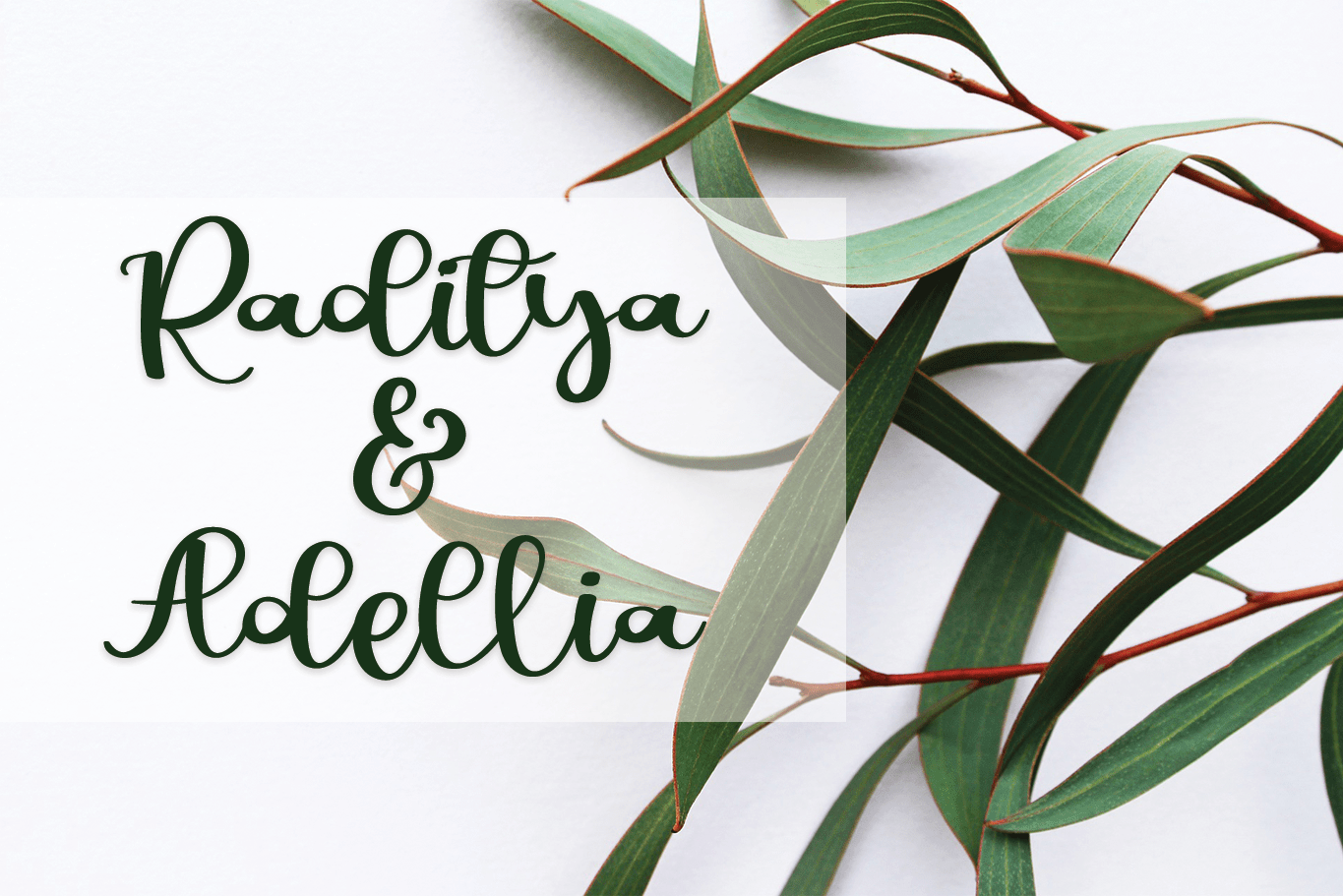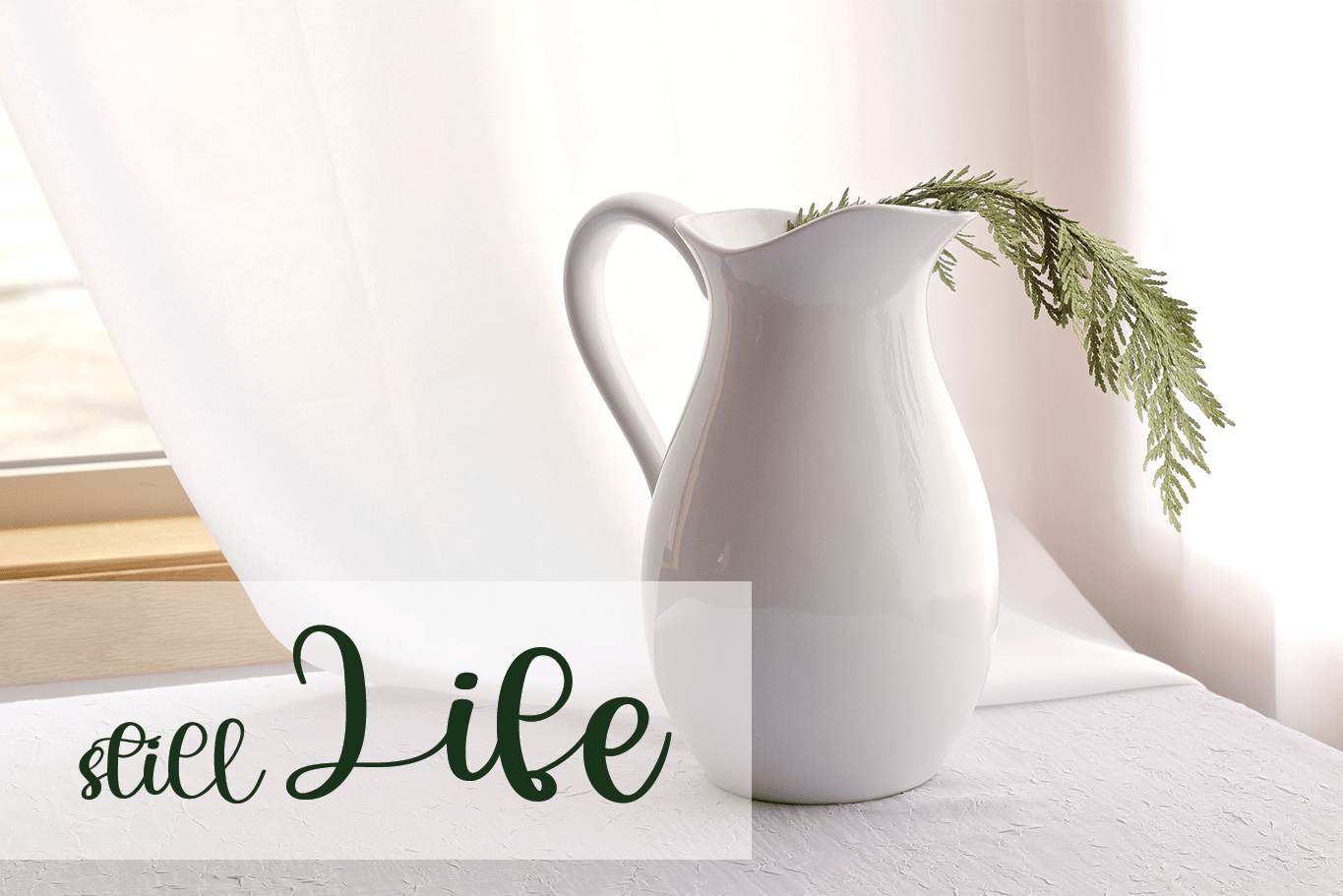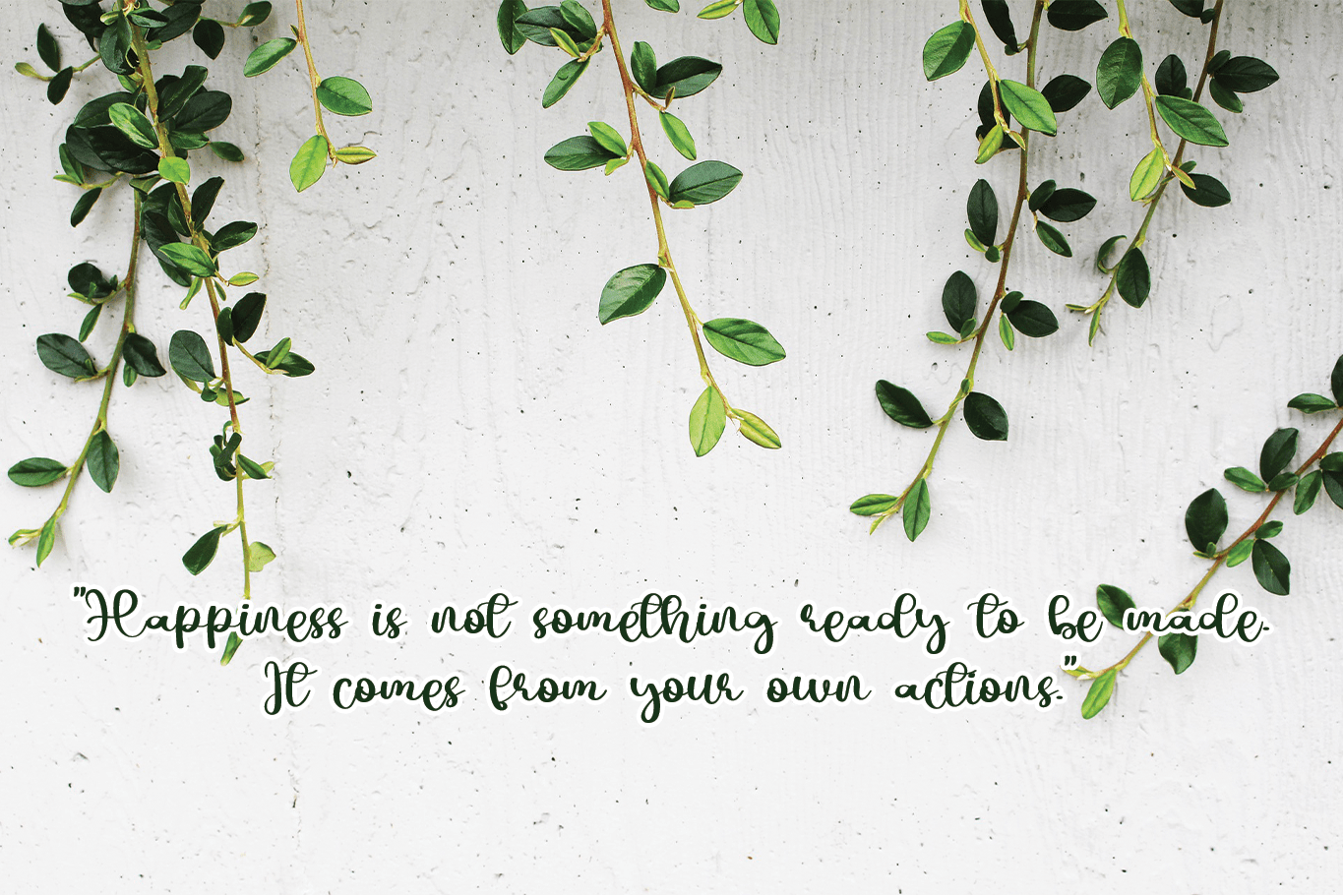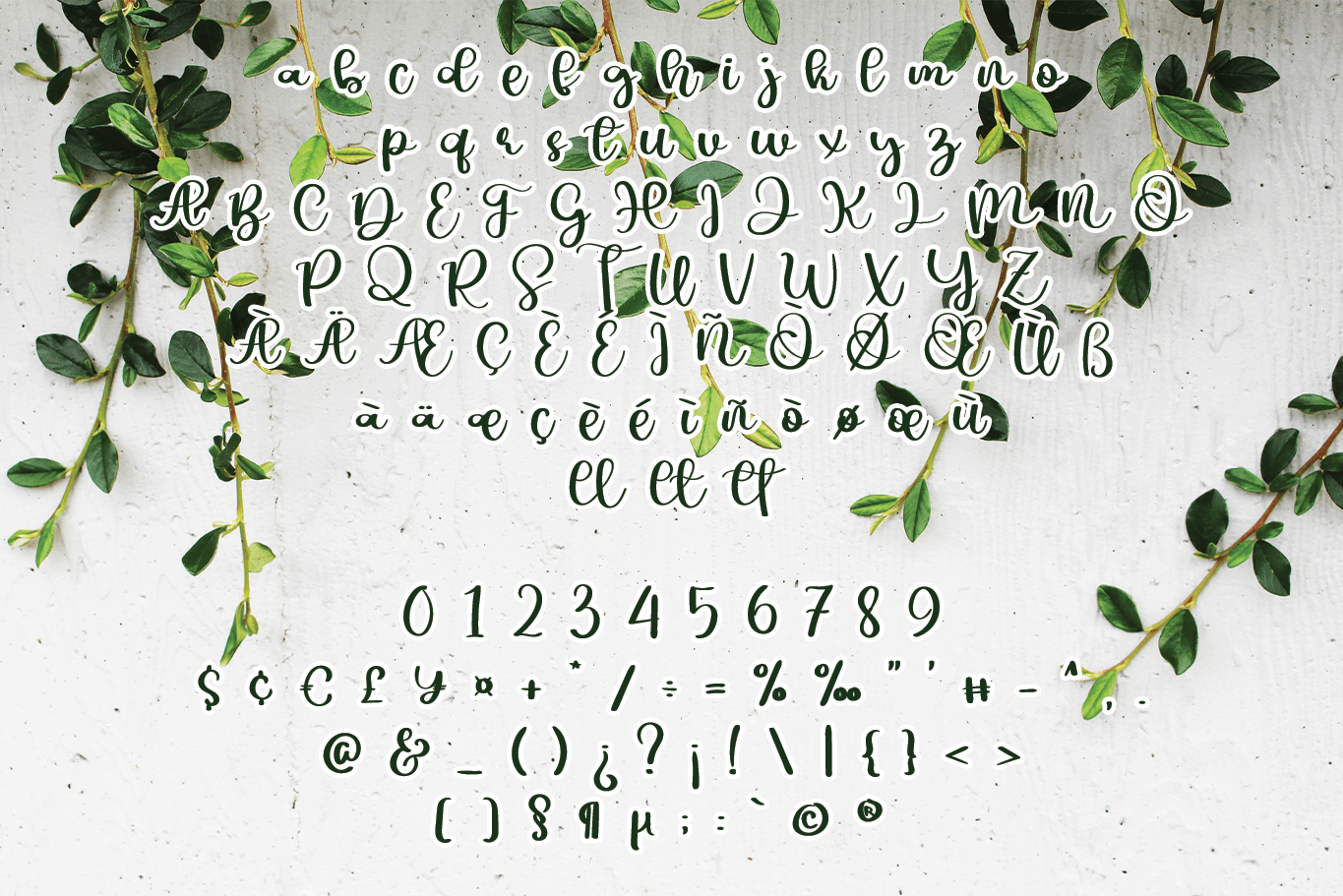
Hello Onyx Font
Hello Onyx Script Font
This is a fashionable script font. It is neatly crafted and highly detailed. Whatever the topic, Hello Onyx will be a wonderful asset to your font library, as it has the potential to enhance any creation.